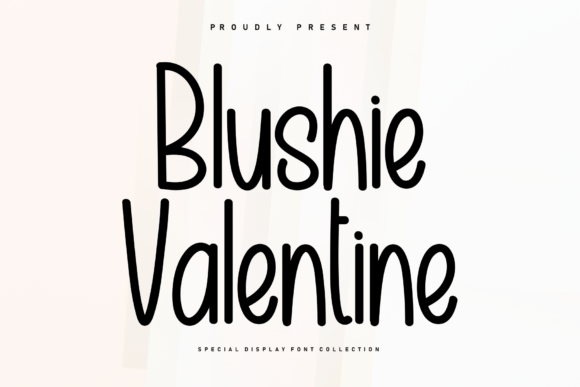
The Blushie Valentine Font: A Designer’s New Best Friend
I’ll never forget the time I was working on a wedding invitation project, and my client asked for a font that was “luxurious, elegant, but still casual and fun.” I scoured the internet, tried out a dozen fonts, but none seemed to fit the bill. That was until I stumbled upon the Blushie Valentine font. With its marker-drawn feel and relaxed vibe, it was love at first sight! In this article, I’ll share my experience with this beautiful font, its features, and how to make the most of it in your designs.
• ✨ The Blushie Valentine font has a unique, handwritten look that’s perfect for branding, logos, and greeting cards.
• ✅ Its relaxed and sporty feel makes it ideal for fashion, lookbooks, and marketing promotions.
• 💕 The font’s elegant yet casual vibe is perfect for wedding supplies, invitations, and other special occasion designs.
• 🎨 The font’s marker-drawn feel gives it a creative, artistic look that’s sure to stand out.
While I adore the Blushie Valentine font, there are a few things to keep in mind:
• ⚠️ The font can be a bit quirky when used in large blocks of text. It’s best suited for headlines, titles, and short paragraphs.
• 🤔 Some of the glyphs and stylistic alternates can be a bit finicky, but we’ll get to that in the “how to use” section.
The Blushie Valentine font was inspired by the designer’s love of handwritten notes and marker-drawn illustrations. The goal was to create a font that felt relaxed, yet elegant; casual, yet sophisticated. The result is a beautiful, one-of-a-kind font that’s perfect for designers, crafters, and creative hobbyists.
Q: What is the Blushie Valentine font best suited for?
A: The Blushie Valentine font is perfect for branding, logos, wedding supplies, greeting cards, fashion, lookbooks, marketing promotions, and any design that requires a luxurious, elegant, yet casual look.
Q: Is the Blushie Valentine font available in different weights or styles?
A: The Blushie Valentine font comes in a single weight, but it has a range of glyphs, stylistic alternates, and OpenType features that allow for some variation and customization.